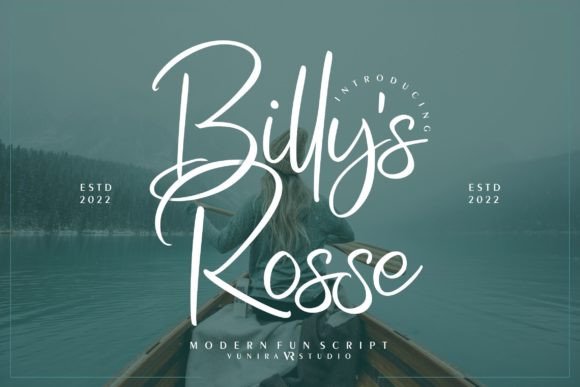
Unleash the Enchantment of Billy's Rosse Script: A Font That Weaves Magic Into Your Creations
Step into a world of enchanting typography with Billy's Rosse, a script font that casts a spellbinding charm over your creative endeavors. Crafted with meticulous precision and a keen eye for elegance, this font is the perfect companion for those seeking a touch of magic in their designs.
With its graceful curves and mesmerizing flow, Billy's Rosse adds a touch of sophistication and whimsy to any project. Whether you're crafting heartfelt Christmas cards, designing eye-catching social media posts, or adding a unique flair to your DIY creations, this font will transform your ideas into masterpieces.
Imagine the wonder in your loved ones' eyes as they receive a Christmas card adorned with Billy's Rosse's enchanting script. The delicate flourishes and elegant strokes will evoke a sense of warmth and joy, making your message truly unforgettable.
Unleash your creativity and let Billy's Rosse guide you through a world of boundless possibilities. From captivating logos and branding elements to personalized invitations and greeting cards, this font will elevate your designs to new heights.
Embrace the magic of Billy's Rosse today and embark on a creative journey where every letter dances with grace and every word tells a captivating story.